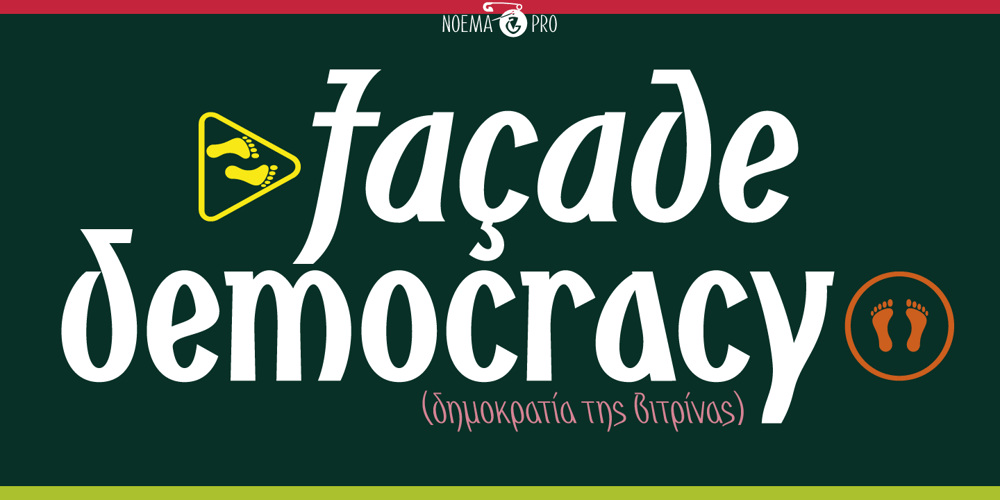
Noema Pro Font Family was designed by Vangelis Dim. Gardikiotis and published by DBSV. Noema Pro contains 12 styles and family package options. About family “Noema Pro” Steps… The name “Noema” is again borrowed from ancient Greek word, which may have different meanings depending on the phrase: meaning, logic, significance, purpose, reason, value, nod, implied. In this font i tried and here(like in “ErisPro”) to give a different illustration in letters with a reverse dial(…sloping or recline) from Italic, simply because of whims or because the monotony is tiring me… This series is composed and includes twenty-four fonts with 658 glyphs each, with true italics, true Sloping and supports of course: Latin, Greek & Cyrillic.